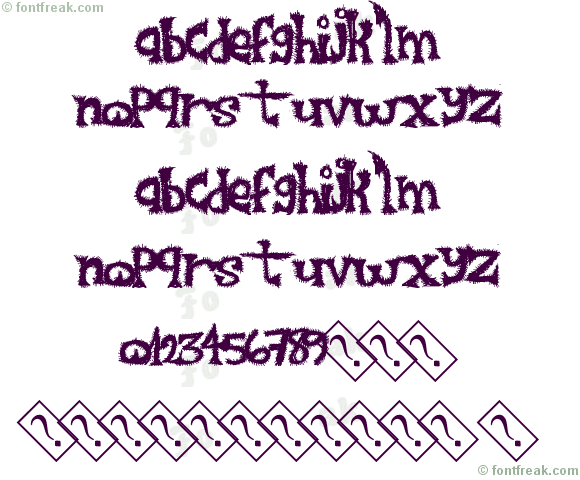
FurrySack
About FurrySack
FurrySack by XEROGRAPHER FONTS is a distinctive display typeface that blends whimsy and uniqueness, making it an eye-catching choice for various creative projects. This font features a playful, hand-drawn aesthetic that captures the essence of spontaneity and fun. With its irregular stroke weight and textured appearance, FurrySack stands out for its dynamic and adventurous feel, appealing to those seeking a less conventional typeface. The spacing is deliberately loose, enhancing its casual charm, while the decorative elements evoke a sense of furry playfulness.
This font is particularly well-suited for a range of applications. Its quirky style makes it an excellent choice for children's book covers, where it can draw in young readers with its inviting look. Graphic designers can utilize the FurrySack font for movie posters aimed at family or animated films, capturing the essence of fun and excitement. Additionally, it can enhance restaurant menus, particularly for casual dining establishments that want to convey a laid-back atmosphere. Event planners might find it perfect for crafting creative invitations for birthday parties or other festive occasions, ensuring that the invite stands out.
What truly makes the FurrySack font free download appealing is its ability to evoke emotion and personality. Its playful nature invites creativity, making it a valuable asset for anyone wanting to make a memorable impression. With FurrySack, your projects are sure to resonate and capture attention in a delightful way.